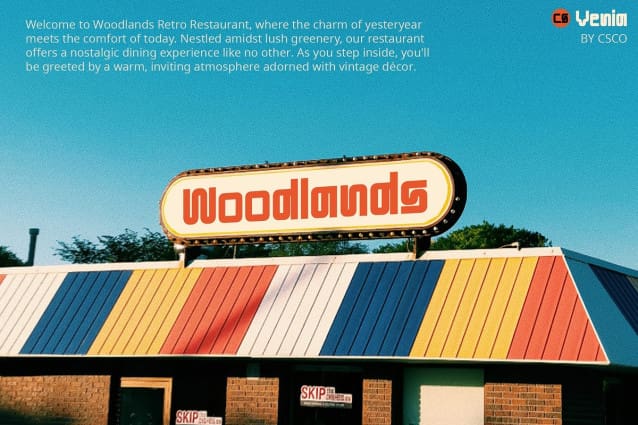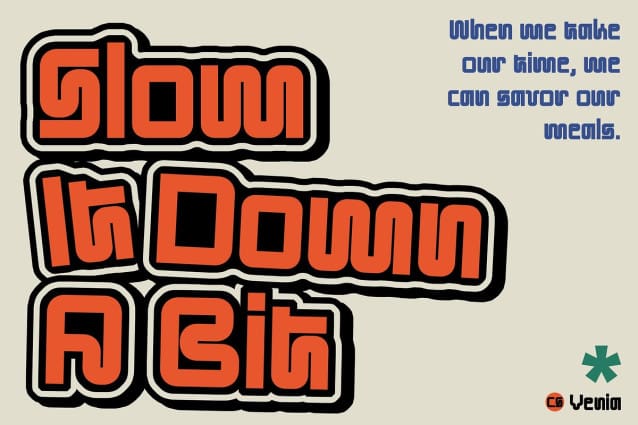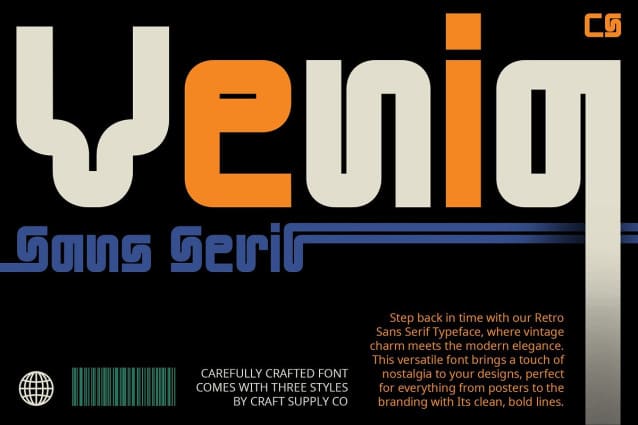
CS Venia Font
CS Venia Font is a distinctive display sans serif font that merges classic charm with contemporary flair, featuring unique shapes and striking characteristics reminiscent of both vintage and modern aesthetics. Ideal for designs seeking to stand out with creativity, uniqueness, and a distinct visual impression, this font adds a playful yet refined touch to various design projects.
Unique Retro and Funky Elements With its unique shapes and funky elements, CS Venia brings a unique style to designs, capturing the essence of retro charm while maintaining a modern appeal. This font is perfect for applications where creativity and distinctiveness are paramount, such as posters, branding materials, and promotional campaigns.
Emphasis on Creativity and Distinctive Design CS Venia excels in highlighting unique and striking characteristics that set it apart in design projects. Whether used in digital interfaces or printed media, its retro-inspired aesthetic adds a nostalgic yet fresh perspective, making it a versatile choice for designers aiming to evoke a sense of uniqueness and style.
Perfect for Eye-catching Visuals Ideal for designs that demand attention and creativity, CS Venia ensures eye-catching visuals with its retro aesthetics. Its combination of classic charm and modern elements makes it a versatile asset for creating memorable brand identities, engaging marketing materials, and dynamic visual experiences.